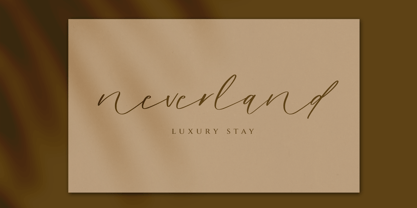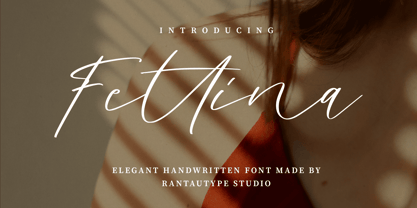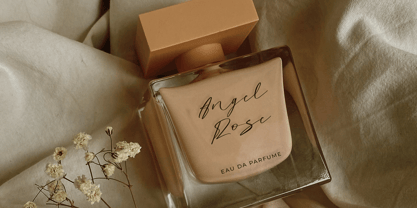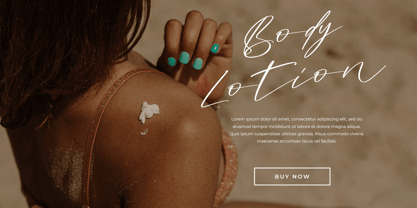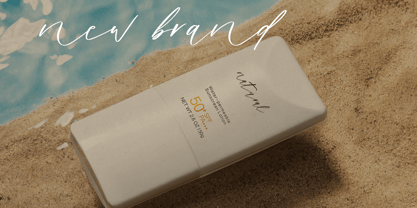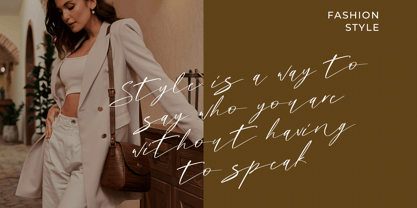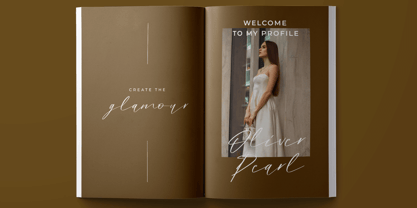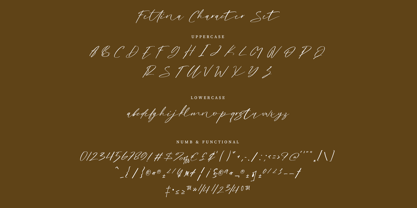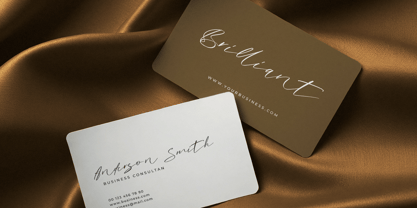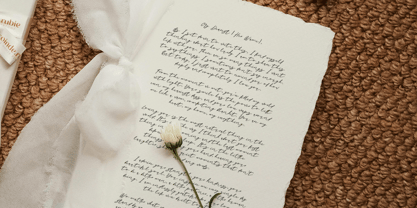
Fettina
by RantauType
The Fettina Font Family was designed by Yudi Pratama Chandra and published by RantauType. Fettina contains 1 styles. More about this family
Fettina is handwritten font with stylish and modern style. Fettina is a perfectly choice for any creative endeavor, creating, modern, chic, lifestyle design such as logotype, title, cover, branding, invitations, wedding designs, display and magazine, social media posts, advertisements, printed quotes, product packaging, corporate brand, product designs, labels, photography, watermarks, special events and any other project with modern touch.